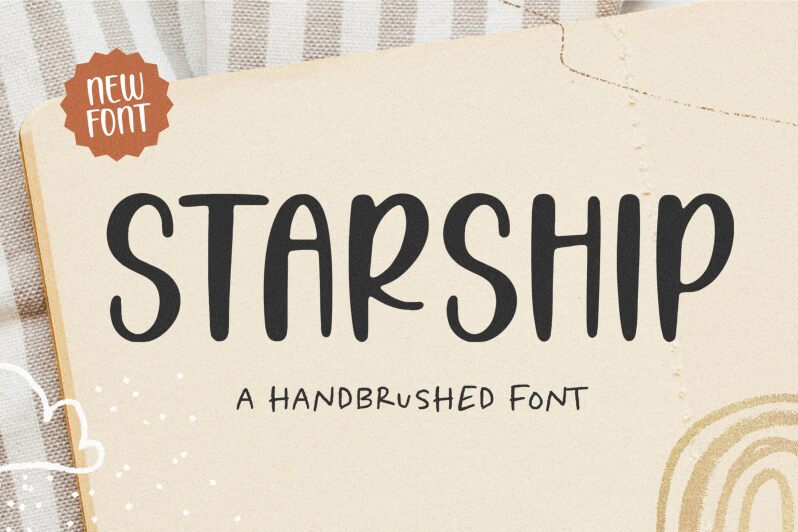
Starship
Starship font by Letterative Studio is a stylized handwritten typeface with a brush-like appearance and irregular texture. It has a contemporary vibe and an artistic hand-drawn feel that resonates across its design. Each of its seamlessly crafted letters carry aesthetic beauty not just individually, but also collectively.
The free handwritten font is great for websites, mobile apps design, advertisements and all kinds of branding activities. Use its magic to enhance covers, invitations or greeting cards or personalize T-shirts and other clothes items. Book covers, event banners, blog posts and posters will shine too using Starship font in their designs.